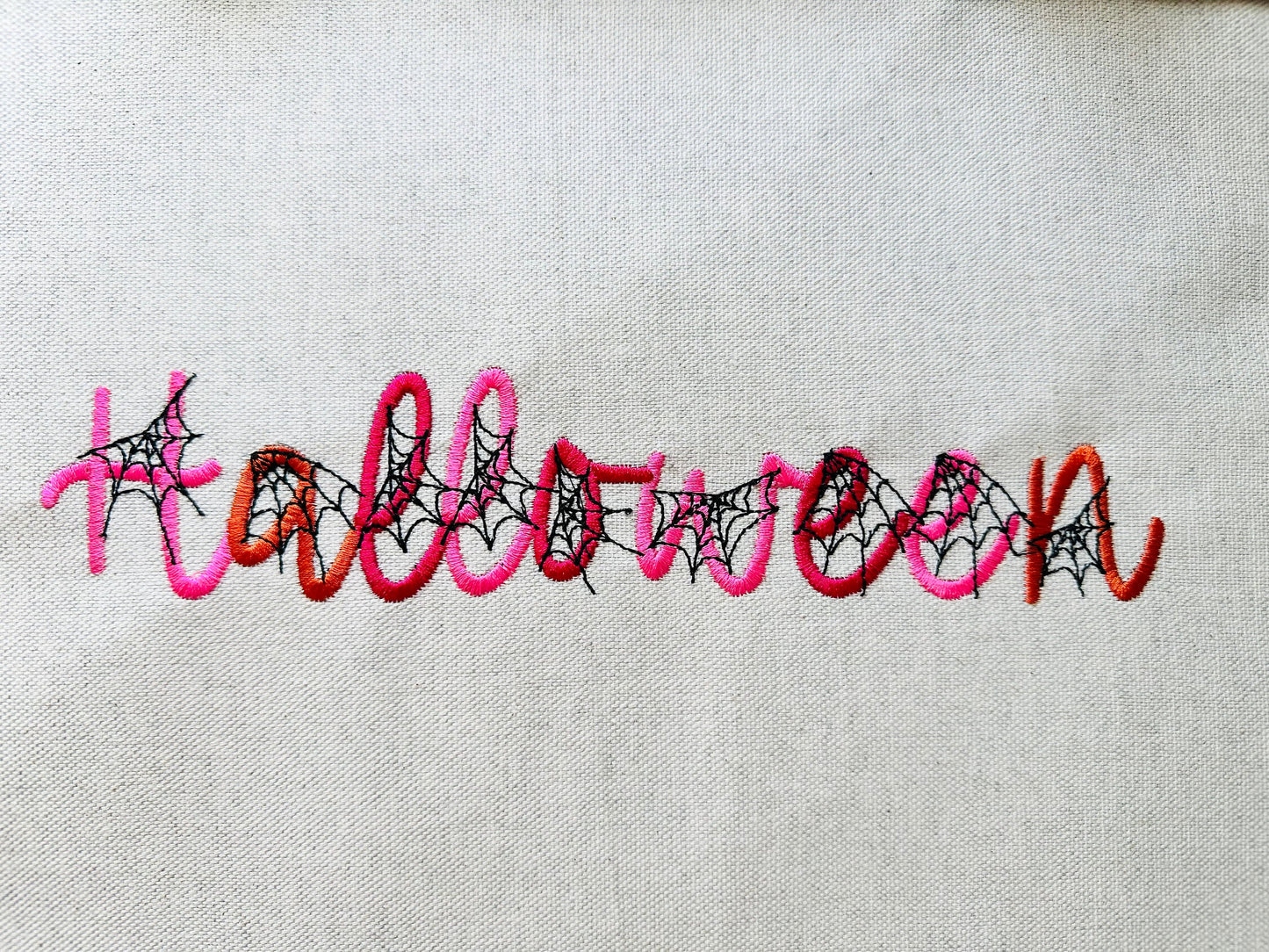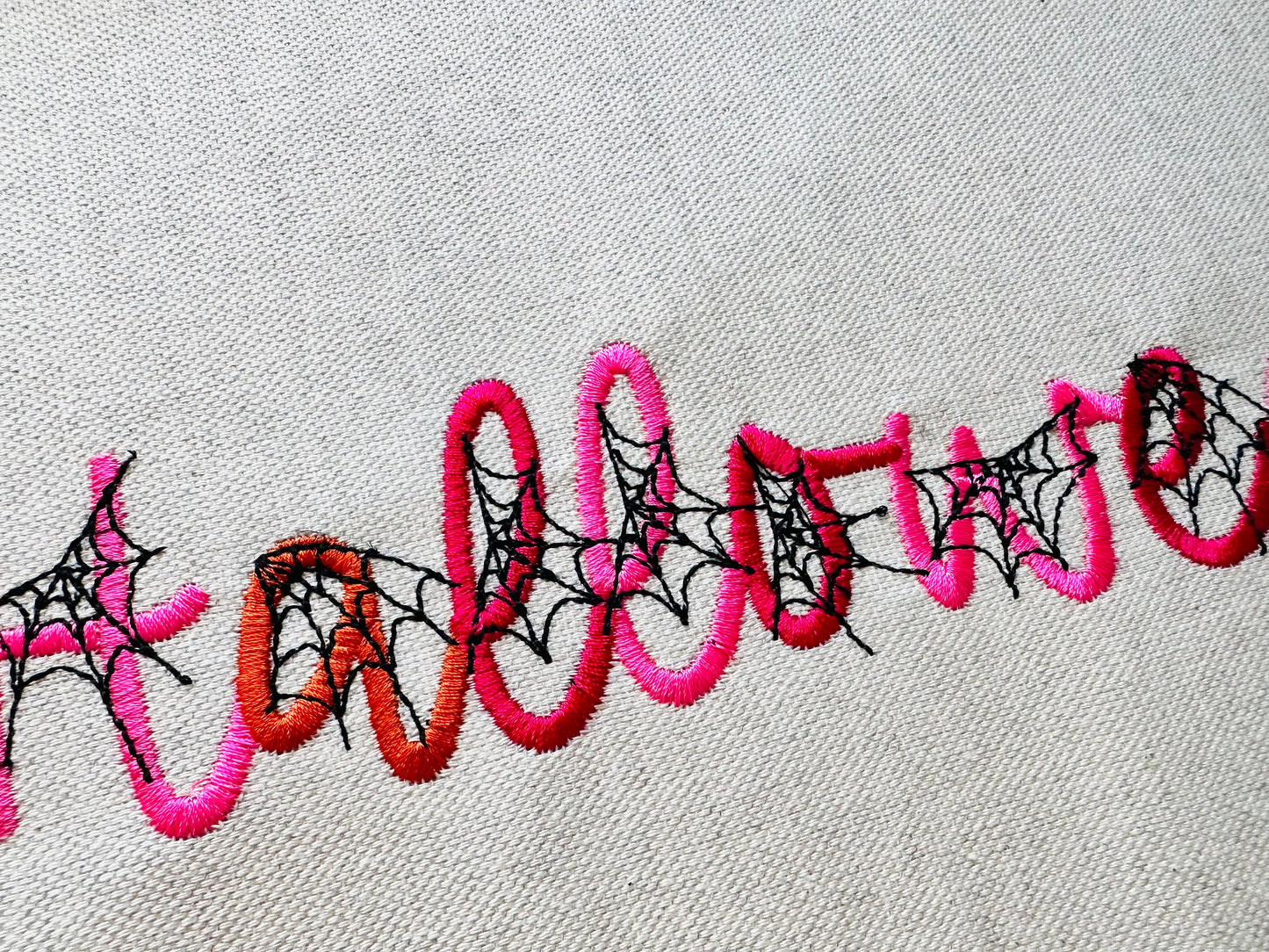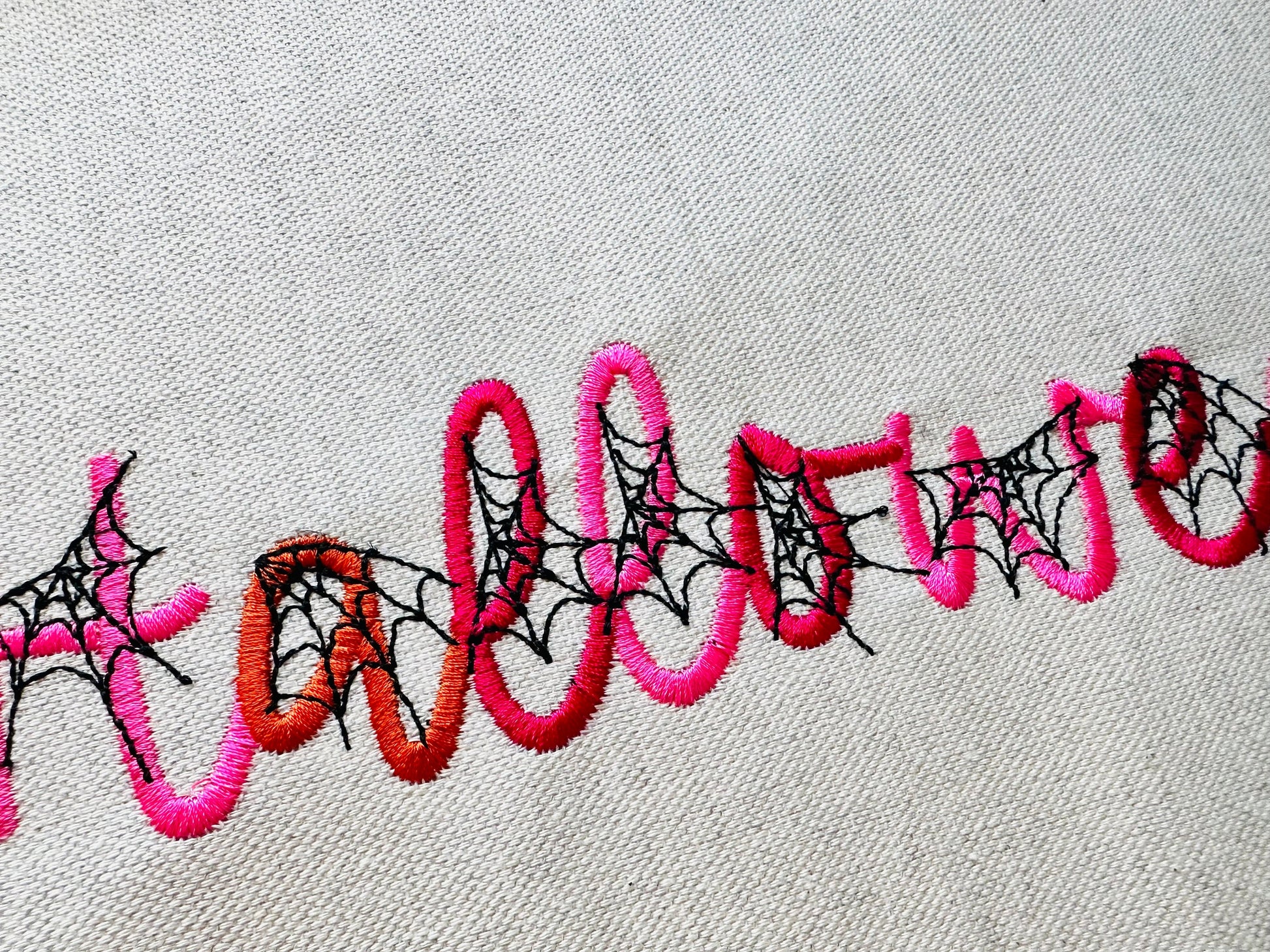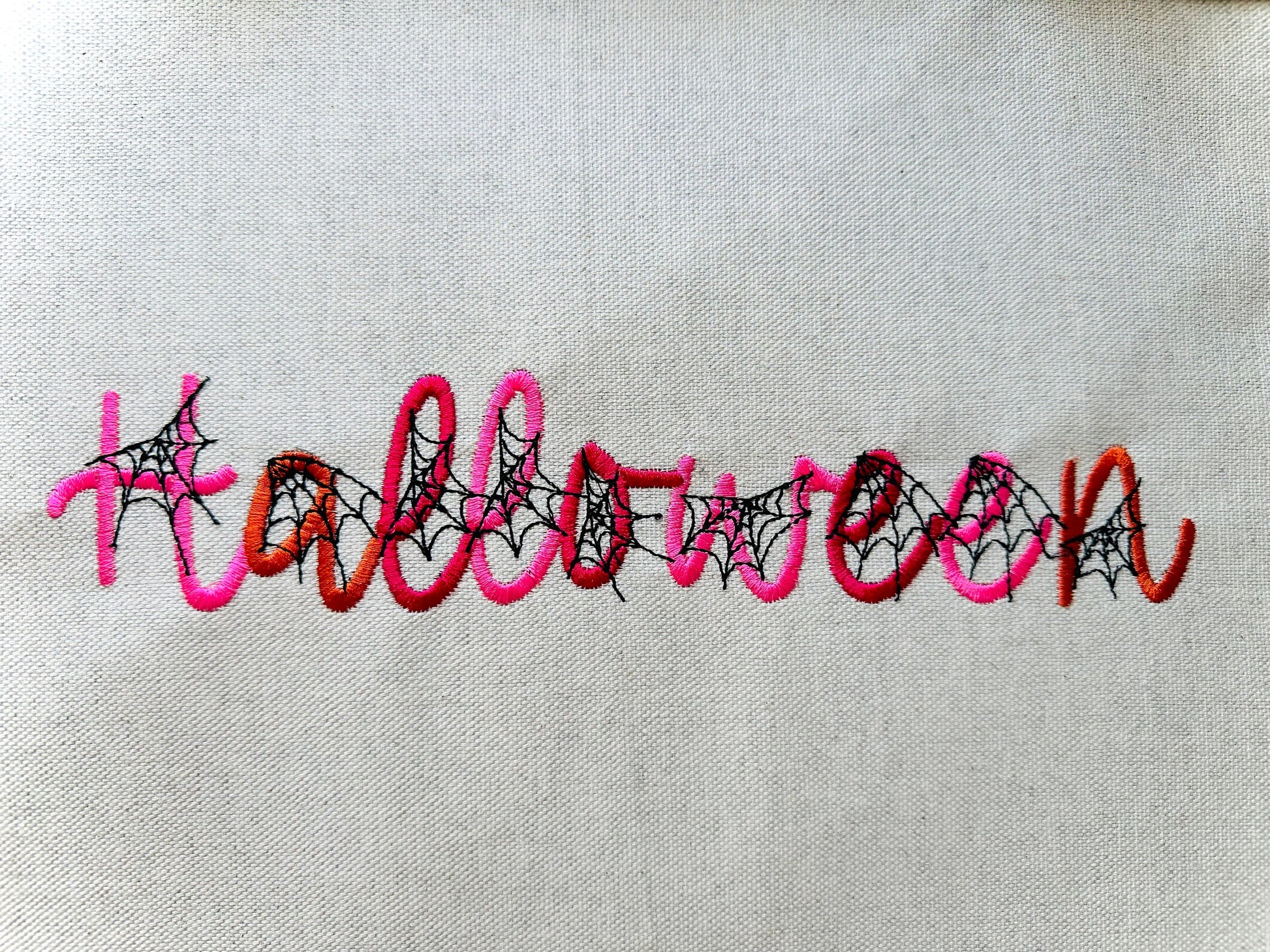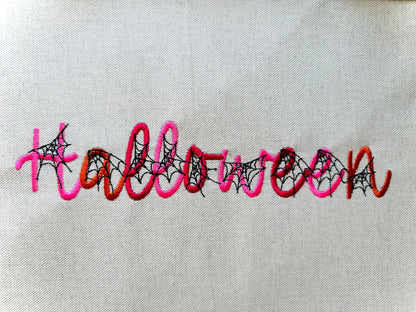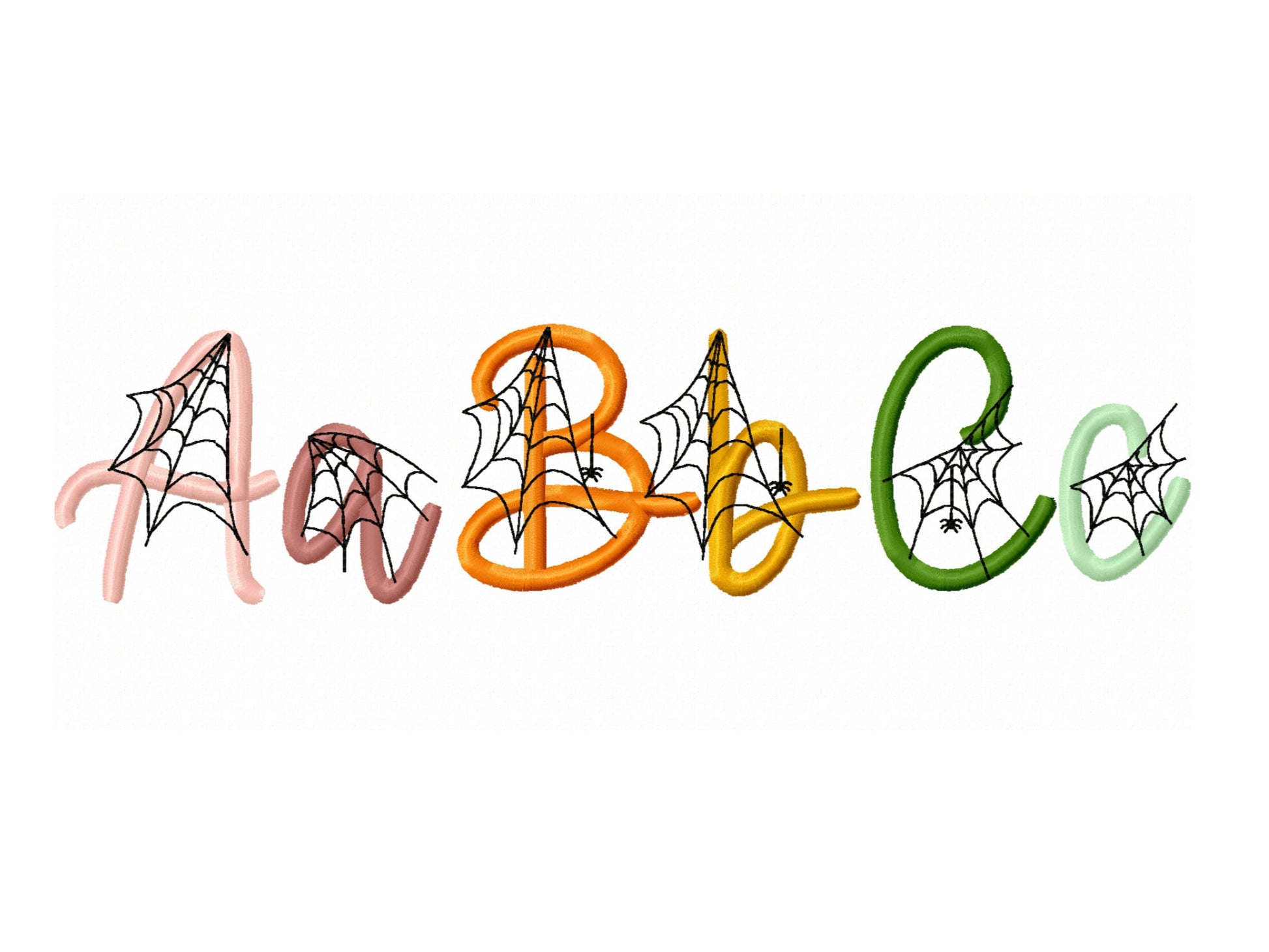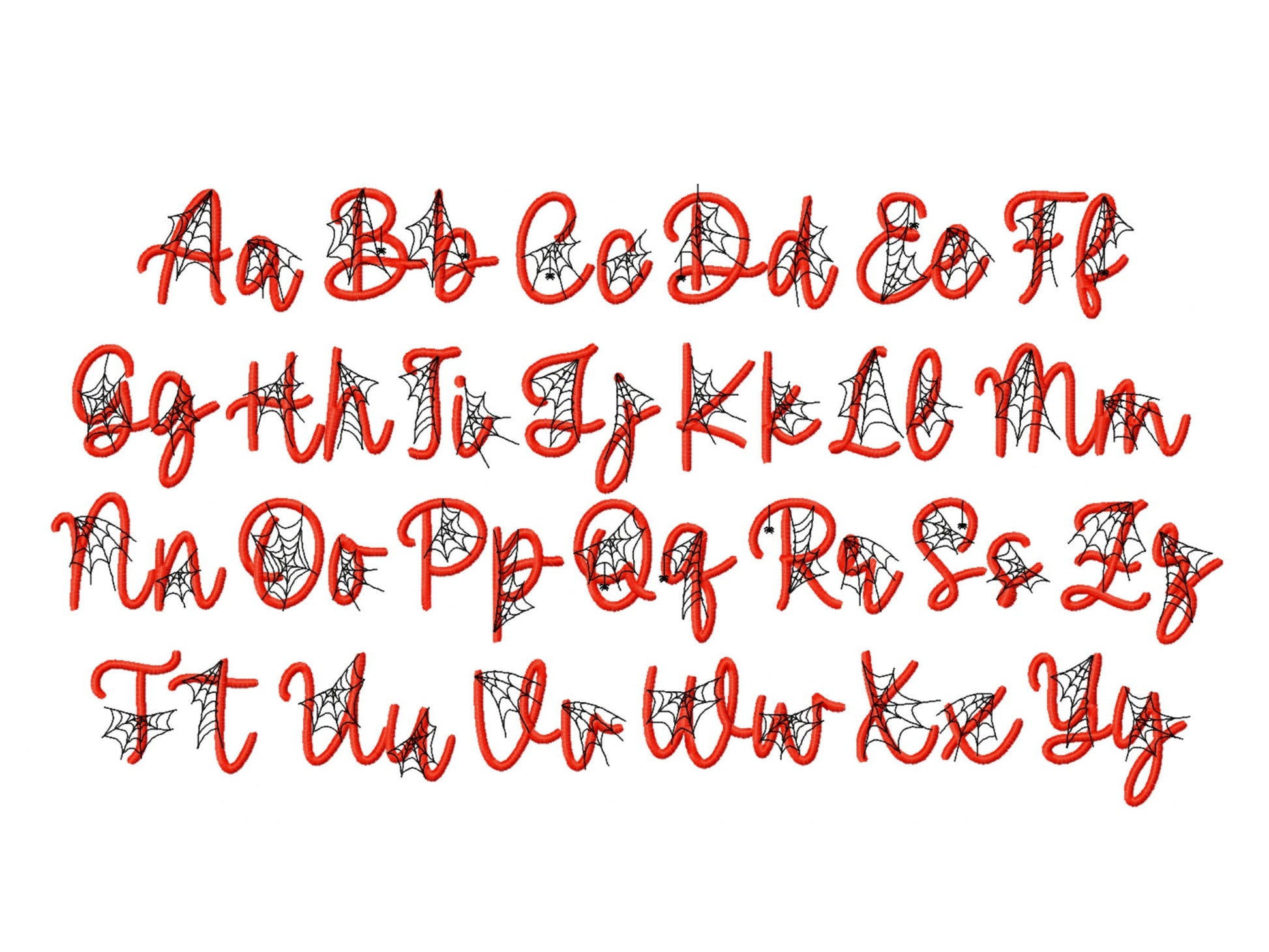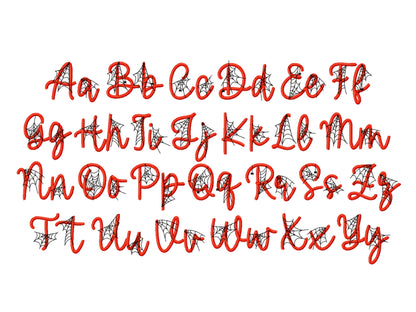
Or click to open the linkA spooky Halloween font with spider webs in every letter. Fun for Halloween shirts, trick-or-treat bags and party decor.
The letters come in six sizes: 1.3, 1.7, 2, 2.5, 3.5 and 4 inches. Satin stitch letters with a spider web pattern stitched in. Includes uppercase and lowercase letters A to Z.